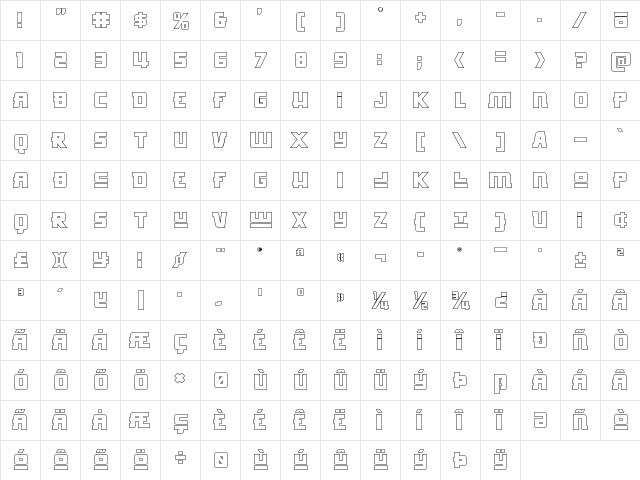
Hong Kong Hustle Outline Regular
Design Context for Hong Kong Hustle Outline Typeface
Hong Kong Hustle Outline is built around its visual character rather than neutral utility — its distinctive forms are designed to make an impression at display sizes.
Font Pairing: Pair with a clean neutral sans-serif for body copy to let Hong Kong Hustle Outline's character lead without overwhelming the composition.
Pro Tip: Use Hong Kong Hustle Outline exclusively at display sizes — it was designed to be seen, not read at length. Let a neutral companion handle body copy.